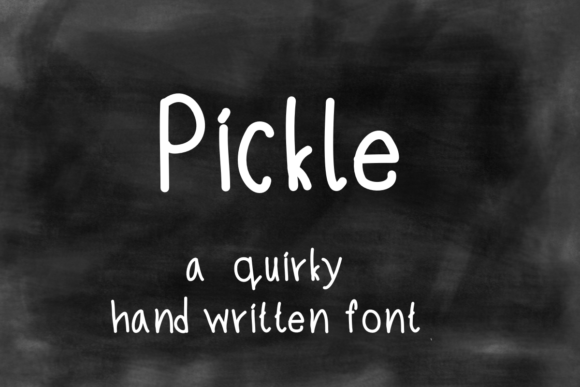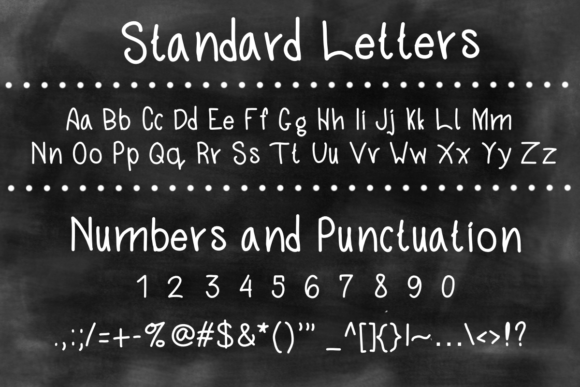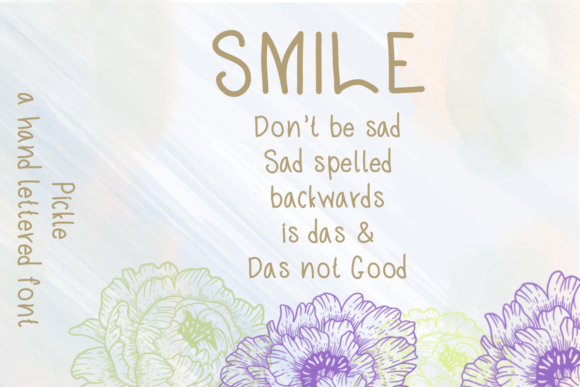
HomeScript FontsPickle Font Script Fonts Pickle Font FacebookXPinterestWhatsApp Pickle Font Poster 2 Pickle Font Poster 3 About Pickle Font Pickle is a quirky handwritten font with a unique style. Fall in love with its authentic vibe! DOWNLOAD ON CREATIVE FABRICAThis font is sold and delivered by Creative Fabrica. Font Canyon may earn a commission if you buy through this link. People also explored Pitshanger Garden House Font Handle Font Hello Winter Font Hoglar Font Peace No War Font Harvest Day Font Milky Moon Font Silviana Font 324 0 TagsPickle Font Previous articleChunky Money FontNext articlePretty Lady Font LEAVE A REPLY Cancel reply Comment: Please enter your comment! Name:* Please enter your name here Email:* You have entered an incorrect email address! Please enter your email address here Website: Save my name, email, and website in this browser for the next time I comment. Personal Use Free 1313 Mockingbird Lane Personal Use Free Read more about this font Latifah Personal Use Free Read more about this font Moon Light Personal Use Free Read more about this font Anggiana Personal Use Free Read more about this font BLOG The 10 Best Handwriting Fonts to Add Personality to Your Designs 10 of the Best Handwriting Fonts for Adding Personality to Your Designs There will undoubtedly be no other better choice than handwriting fonts to give... Using Fonts in Digital Marketing: Tips to Strengthen Your Brand Identity How to Cut Any Font on Cricut: Convert a Font to SVG (Free) How to Install and Use Fonts on Windows, macOS, and Web Projects